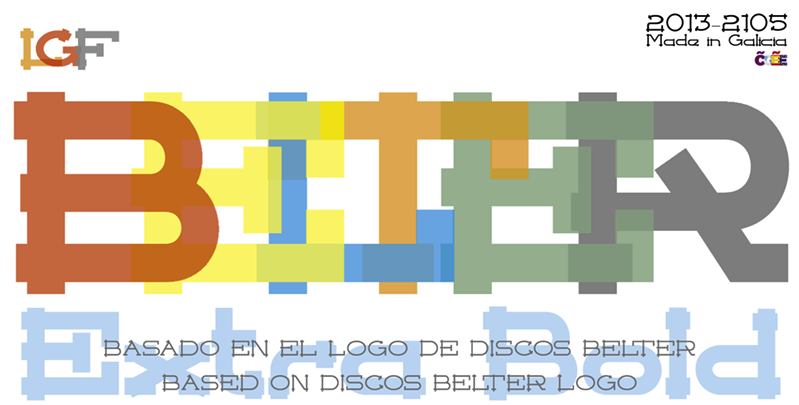
Font name: | LGF Belter |
Author: | Manuel Lage |
Note by Manuel Lage | |
The LGF BELTER font family is inspired by the BELTER MUSIC logo. The family consists of two variants "DISCOS and VINILOS" and five different weights each (making a total of 10 font files). he sale of the complete source for commercial use is available only on the author's website: Or by mail dvddws@yahoo.es |